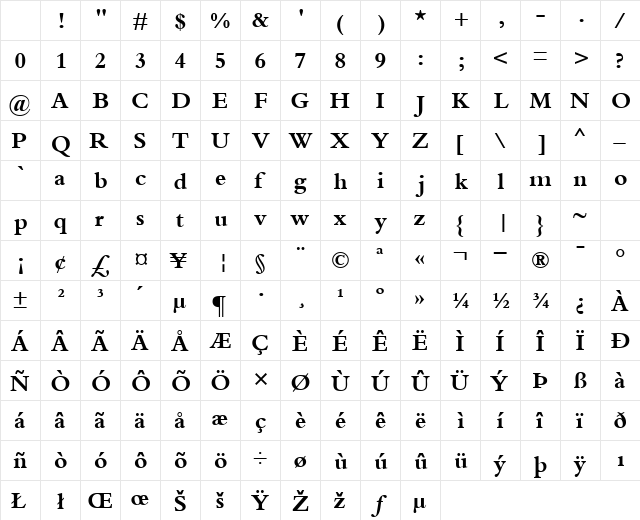
Complete KuriakosBlackSSK Bold glyph index. Displaying only characters natively supported by KuriakosBlackSSK Bold font.
KuriakosBlackSSK is a composed and adaptable typeface that performs quietly and consistently across a wide range of design contexts. Its bold stroke weight gives it real presence on the page.